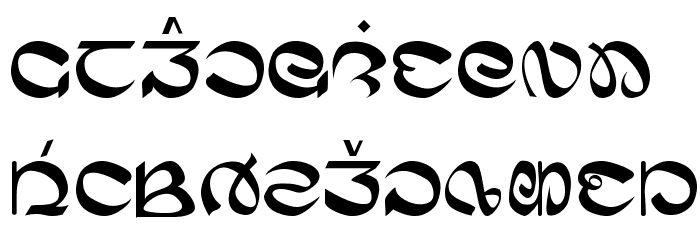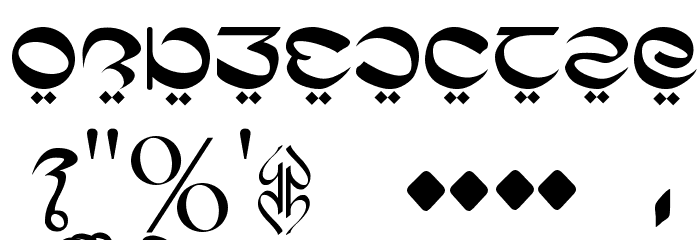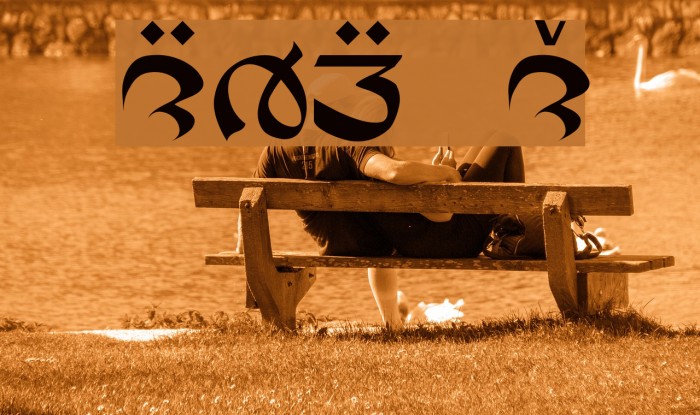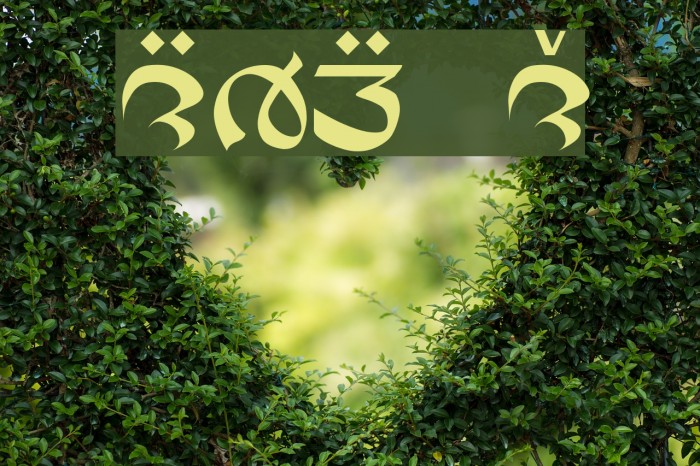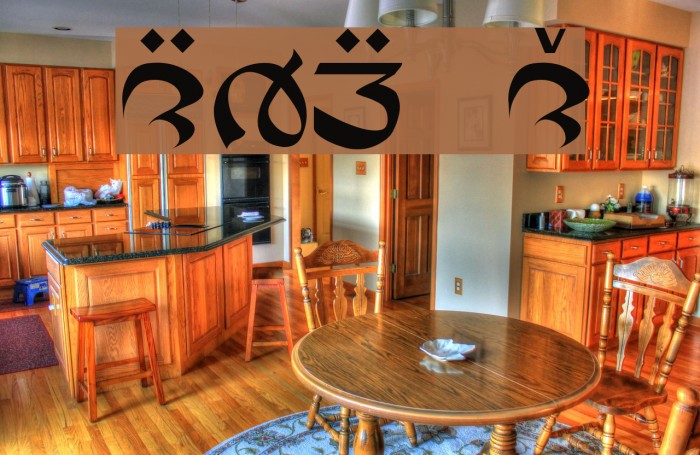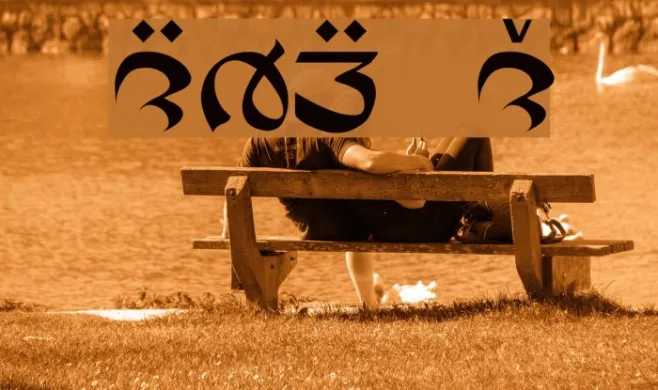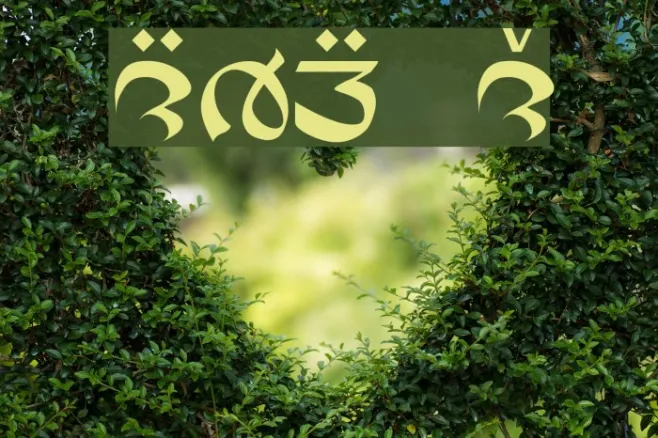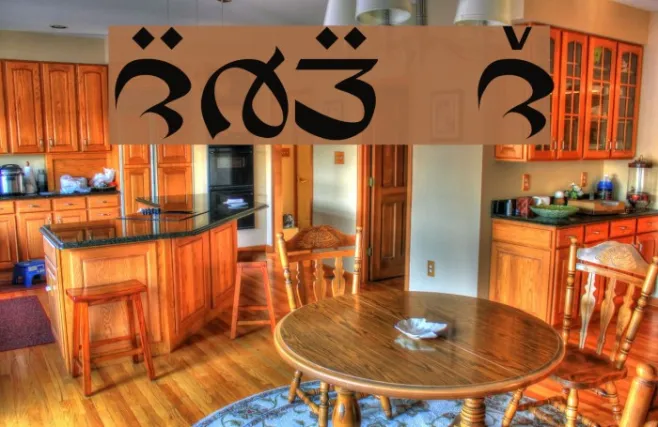
Harta HU Font
This typeface features a highly decorative and stylized design, characterized by its bold and curvaceous letterforms. Each character is crafted with intricate details, incorporating unique curves and angles that give it a distinct artistic flair. The font exhibits a strong presence with its thick strokes and elaborate shapes, making it ideal for attention-grabbing designs. Its ornate style suggests a cultural or historical influence, possibly inspired by traditional scripts or calligraphy. The characters are closely spaced, enhancing the compact and cohesive appearance of the text. This font is best suited for projects that require a dramatic and eye-catching visual impact.
A bold, decorative font with intricate, curvaceous letterforms and a strong visual presence.
- Character Spacing: Tight